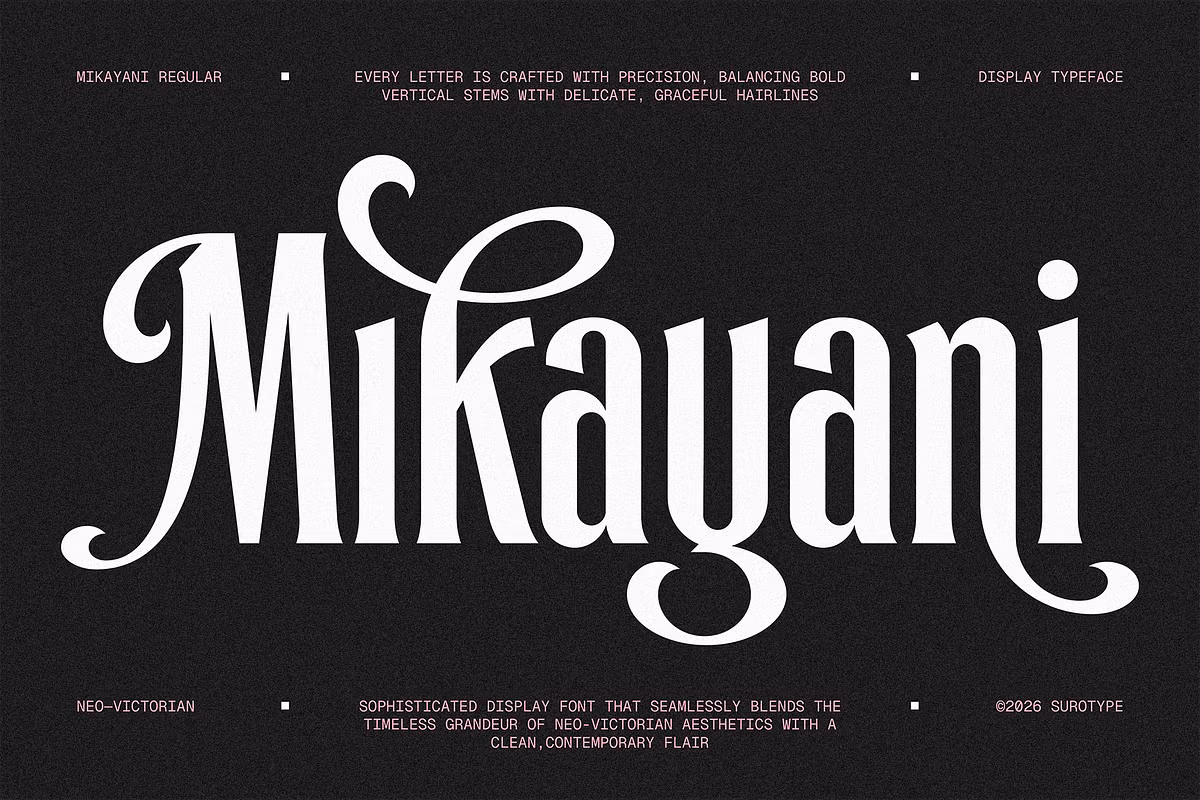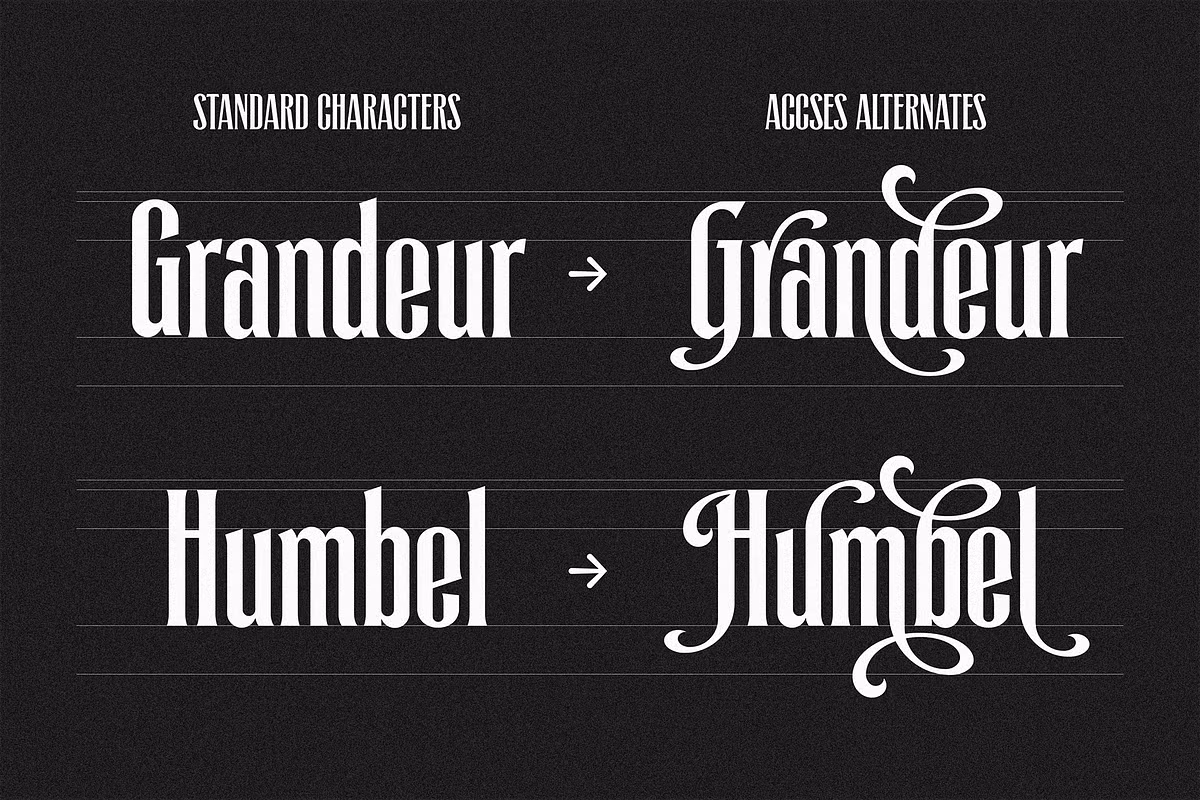
Mikayani Regular: Elegant Neo-Victorian Display Font for Design
Mikayani is a sophisticated display font that seamlessly blends the timeless grandeur of Neo-Victorian aesthetics with a clean, contemporary flair. Perfectly suited for a variety of design applications, Mikayani stands out with its striking features and elegant design, making it a must-have for any designer looking to elevate their typography.
Mikayani’s design is all about contrast – it’s got super sharp serifs and really fluid, decorative swashes that make it look luxurious and refined, like something out of the Neo-Victorian era, but with a modern twist that makes it work for today’s designs. The way the bold, vertical stems are balanced with delicate, graceful hairlines is really visually appealing – it grabs your attention and draws your eye in. This font is perfect for making a statement, and its unique blend of old and new styles makes it really versatile.
Whether you’re going for a classic, sophisticated look or something more modern and edgy, Mikayani’s got the elegance and refinement to pull it off. Mikayani has a really interesting way of making things look old-fashioned, but still cool and modern. It’s great for designing fancy logos for high-end fashion brands or fancy titles for magazines – it adds a touch of class to whatever you’re working on. This makes it a great choice for designers who want to create something that looks fancy and elegant, but still fits in with today’s style.
Character Sets and Extensive Alternates
Mikayani is more than just a regular font, it’s a powerful tool for creating amazing typography. It comes with a wide range of stylish alternatives and decorative touches that let you personalize your text. You can choose from different stylistic sets, swashes, and special ligatures to make your words look truly unique. This means you can create one-of-a-kind designs and layouts that really grab attention. With Mikayani, you have the freedom to get creative and make your typography stand out from the crowd.
Whether you’re working on a project that needs a personal touch or just want to add some flair to your text, Mikayani gives you the tools to make it happen. To get the most out of OpenType Stylistic Alternates, you need software that supports OpenType. This kind of software lets you dive into all the details that Mikayani has to offer, making it easy to add a touch of precision to your design projects.
Use Cases for Mikayani
The applications for Mikayani are vast, making it an ideal choice for various design projects. Here are some notable use cases:
- High-End Branding: Mikayani’s design is really stylish and fancy, making it a great fit for high-end brands that want to look classy and sophisticated.
- Editorial Headlines: Mikayani shines in editorial contexts, where its dramatic flair can enhance magazine covers and article titles, drawing readers’ attention immediately.
- Fashion Industry: With its Neo-Victorian soul and modern heart, Mikayani is an excellent choice for fashion logos, lookbooks, and advertisements.
- Event Invitations: Whether for weddings, galas, or other upscale events, Mikayani lends an air of sophistication that can elevate invitations and announcements.
When using Mikayani, it’s important to consider how it pairs with other typefaces to create a cohesive design. Here are some pairing suggestions:
- Sans-Serif Fonts: Pairing Mikayani with a clean, sans-serif font like Montserrat or Open Sans can provide a modern contrast that balances its ornate features.
- Classic Serif Fonts: For a more traditional approach, consider pairing Mikayani with classic serifs like Playfair Display or Baskerville to complement its Victorian elements.
- Simple Typefaces: To give your design a modern feel, try pairing Mikayani with simple typefaces like Lato or Raleway.
This way, Mikayani can be the star of the show without making the design look too busy. By keeping the other typefaces simple, you can create a nice balance that lets Mikayani’s unique style shine through. This is a great way to add some visual interest to your design without overwhelming the viewer.
Mikayani is not just a font, it’s a powerful tool that combines classic Victorian style with modern design. This font has a lot to offer, including a high-contrast look, a wide range of characters, and the ability to be used in many different ways. With Mikayani, you can create beautiful and eye-catching typography that really grabs people’s attention.
It doesn’t matter if you’re working in the fashion world, creating luxury brands, or designing editorial content – Mikayani is the perfect choice to take your work to the next level. Take a closer look at what it can do, be creative with it, and watch your imagination come to life with this amazing display font. Mikayani is all about helping you make a statement and stand out from the crowd. Its unique blend of old and new makes it perfect for anyone looking to add a touch of elegance and sophistication to their projects. So why not give it a try and see what you can create with Mikayani?